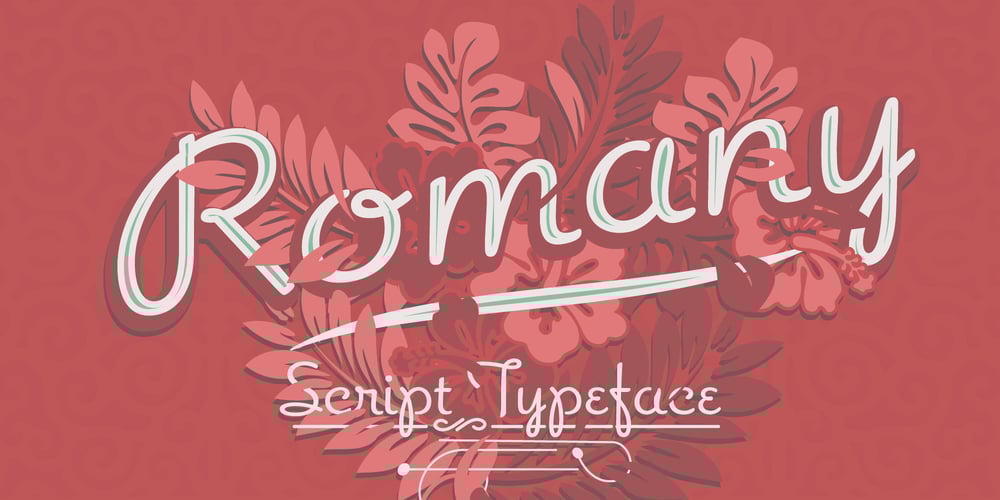
Romany Font Family was designed by A. R. Bosco, Terrance Weinzierl and published by Ascender. Romany contains 4 styles and family package options. The Romany™ typeface family is a delightful typographic confectionary that will bring affability and charm to both print and interactive design projects. Be it an online game, digital app, hardcopy packaging, or larger than life poster, Romany will deliver. When first designed by A.R. Bosco for American Type Founders in 1934, Romany was a single weight design. Relatively popular as hand-set type, Romany was not made into digital fonts – until now. The septuagenarian design was updated, reimagined and enlarged into a small family by Terrance Weinzierl.